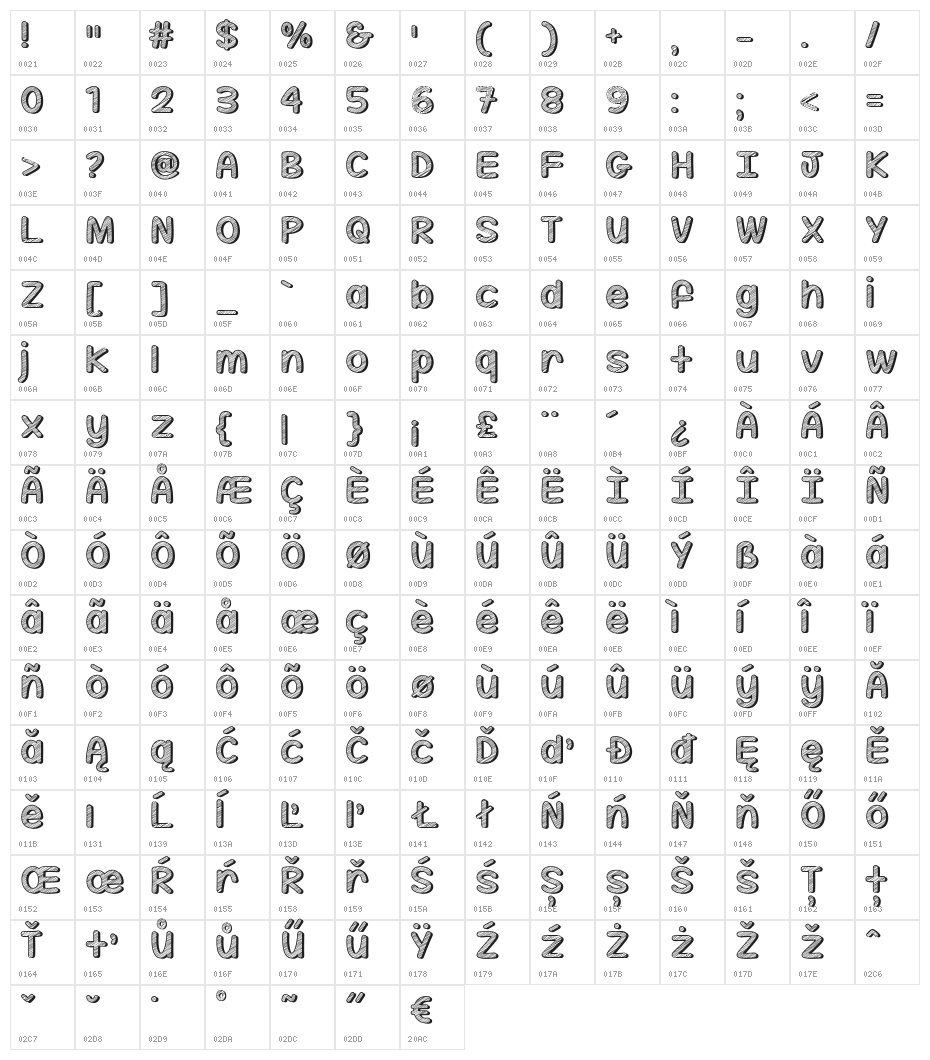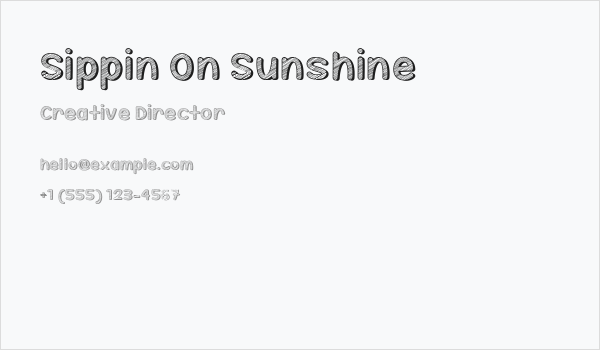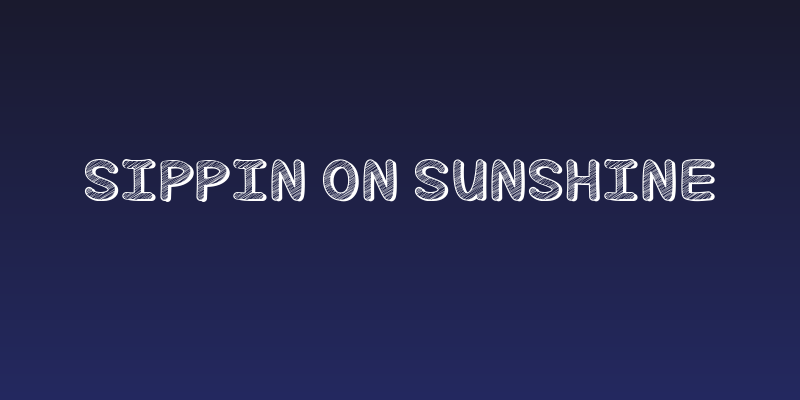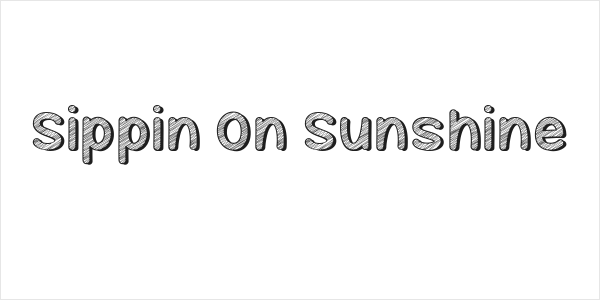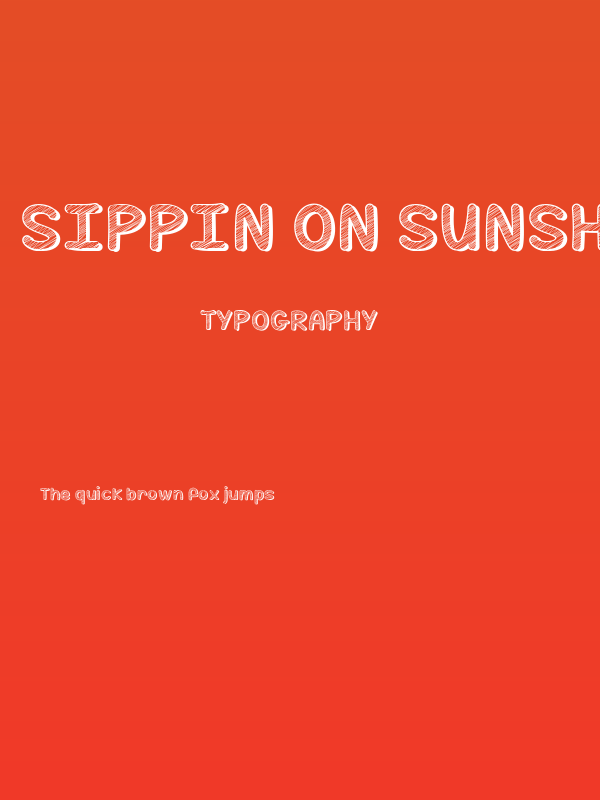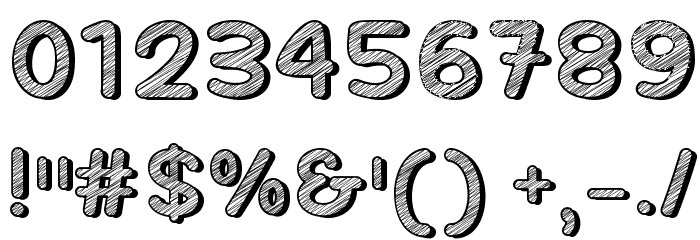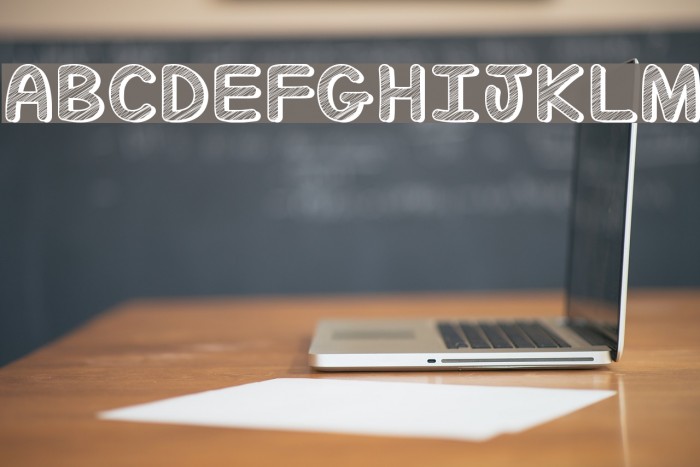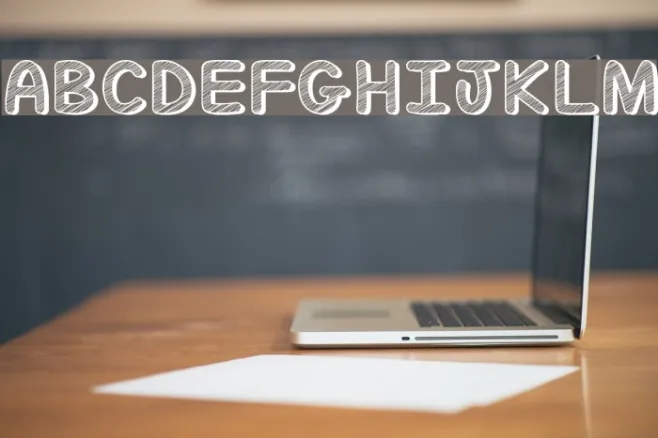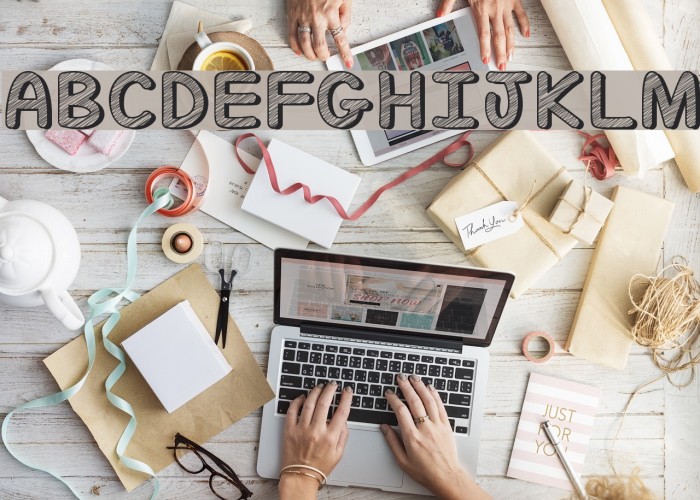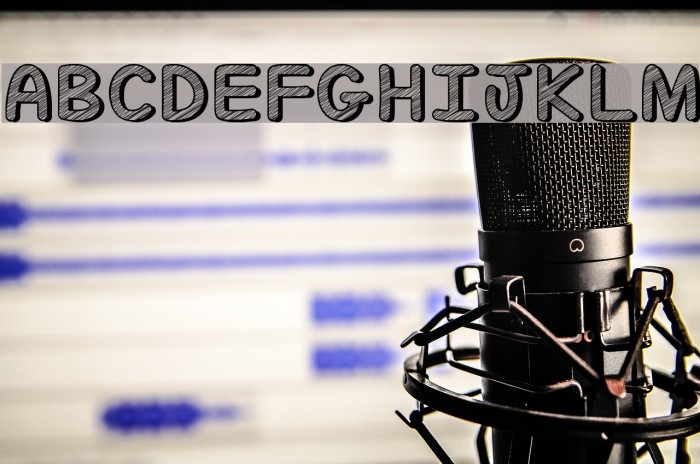
Sippin On Sunshine Font
Sippin On Sunshine Description
This playful and whimsical font features a hand-drawn, sketch-like appearance with a textured, shaded fill. The characters are rounded and bold, giving them a friendly and approachable feel. The uppercase and lowercase letters maintain a consistent style, with a slightly irregular, organic shape that adds to the casual charm. Numbers and special characters are equally expressive, making this font versatile for various creative projects. The overall aesthetic is reminiscent of doodles or chalkboard art, perfect for adding a touch of fun and creativity.